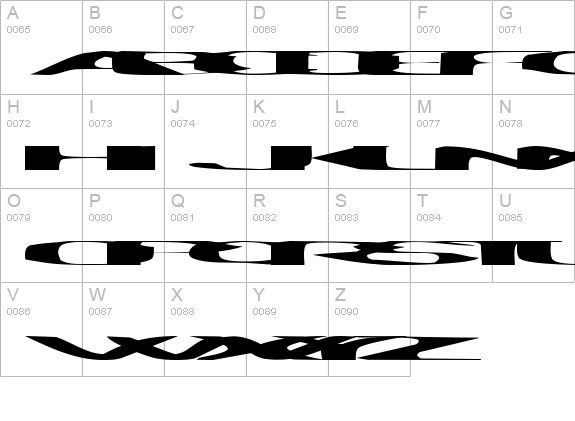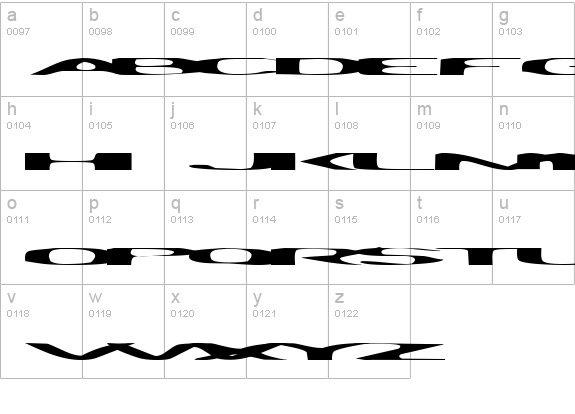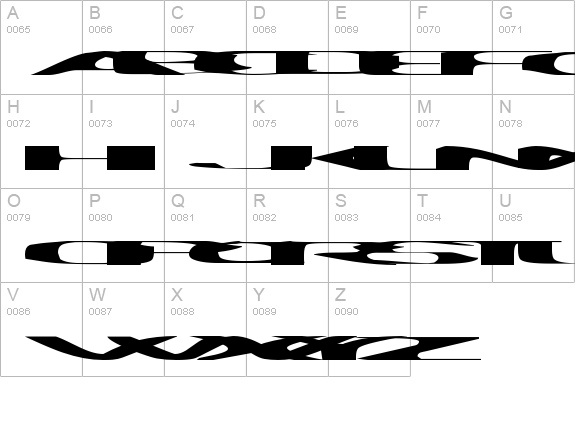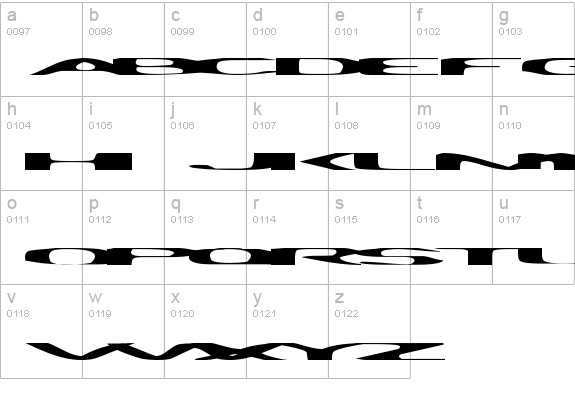
Psychye Font Details
Introducing Psychye font - a stylish and modern typeface that exudes sophistication and creativity. Its sleek and bold design makes it perfect for a wide range of projects, from branding to editorial design. The unique letterforms of Psychye font will capture attention and leave a lasting impression on your audience. What sets Psychye font apart is not only its striking appearance but also the fact that it is available for free! Yes, you read that right - this exceptional font can be freely downloaded at FontsMarket.com. Whether you're a designer looking to add a fresh touch to your creations or a business owner in need of a standout visual identity, Psychye font is the perfect choice. Don't miss out on the opportunity to enhance your projects with this remarkable font. Download Psychye font for free today and elevate your designs to new heights!